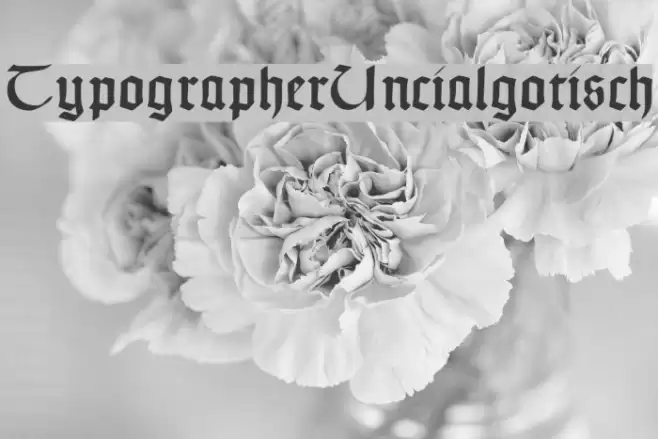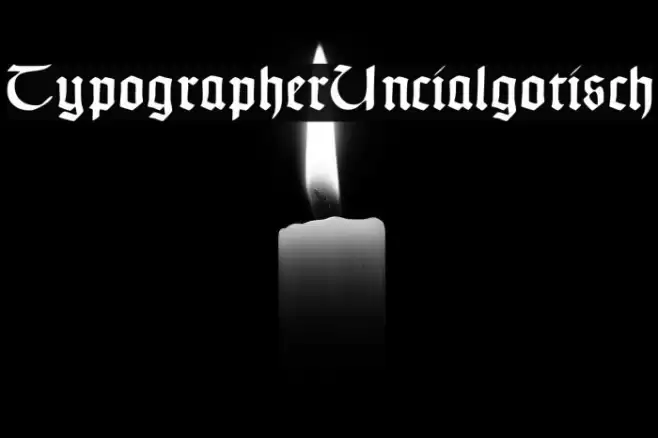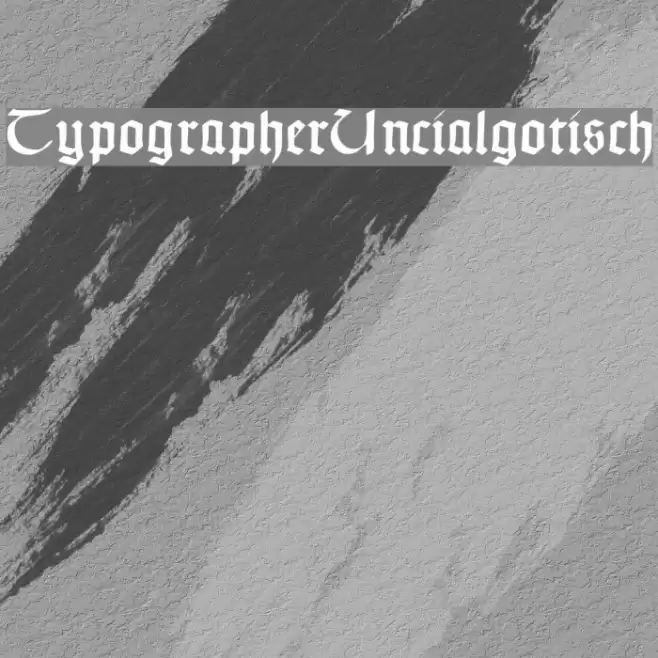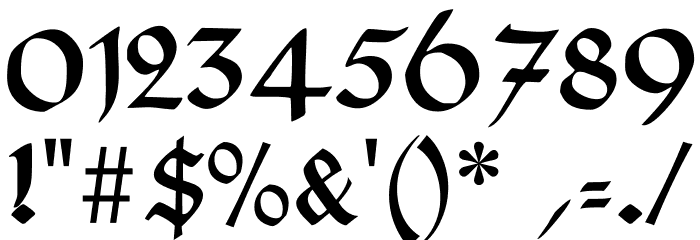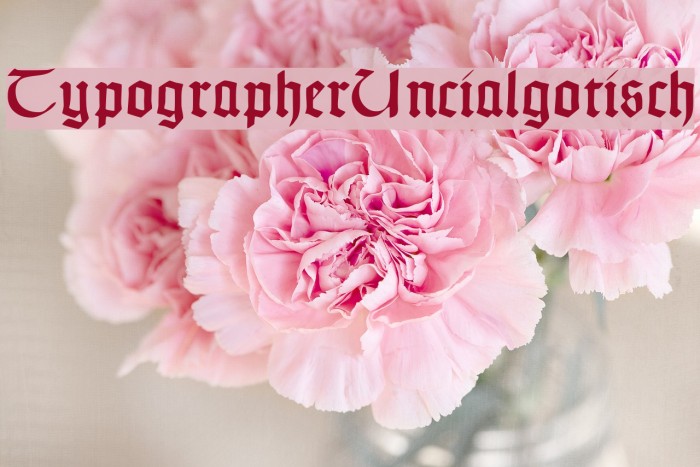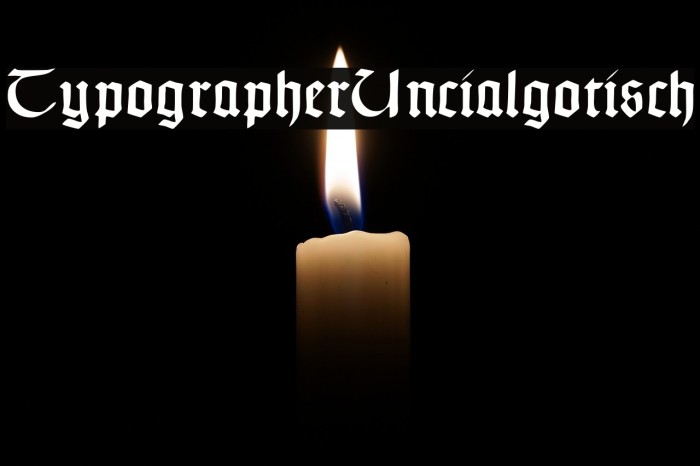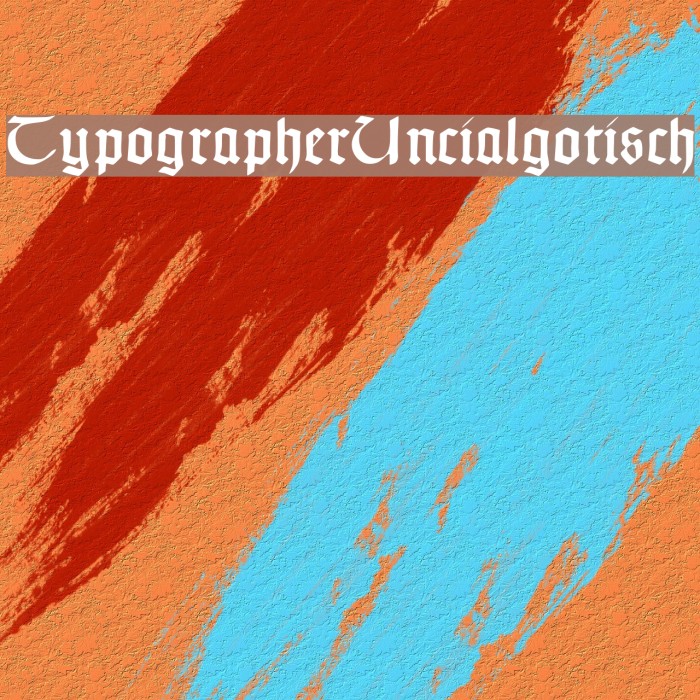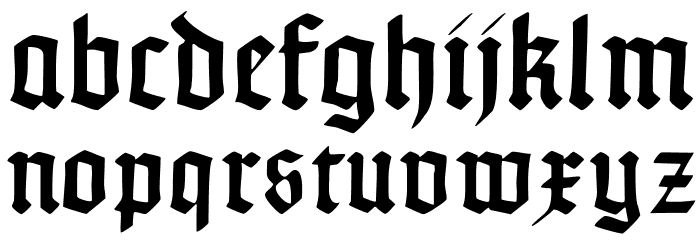
TypographerUncialgotisch Font
TypographerUncialgotisch Description
This font exhibits a classic Blackletter style, characterized by its intricate and ornate letterforms. The uppercase letters are bold and angular, with sharp serifs and a distinct medieval appearance. The lowercase letters maintain the same decorative style, with a strong emphasis on vertical strokes and pointed arches. The numerals are consistent with the overall theme, featuring a similar boldness and angularity. Special characters are designed to match the ornate style, adding a cohesive look across all glyphs. This font is reminiscent of traditional Gothic scripts, often used in historical and formal contexts.
A bold, ornate Blackletter font with a classic Gothic style from Uncategorized fonts.
- Proposed Projects: Ideal for historical documents, formal invitations, certificates, and branding that requires a traditional or medieval aesthetic.
- Overall Style: Classic
- Use Case: Headlines, Logos, Decorative text